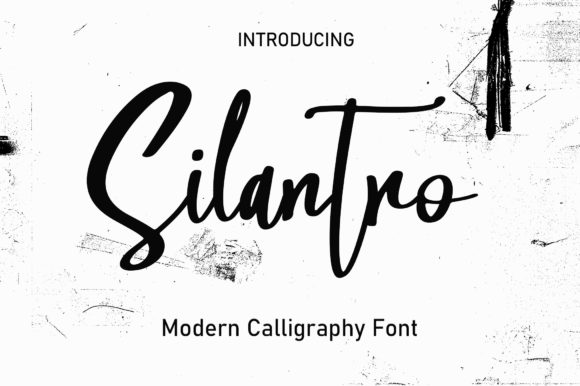
Allow Silantro's enchanting dance of characters to adorn your digital creations with a touch of exquisite grace. This captivating script font, meticulously crafted by the renowned Neo Studio, unveils a world of possibilities for your website design endeavors.
Step into a realm where elegance knows no bounds. Silantro's sweeping strokes and playful flourishes ignite a symphony of visual delight, ensuring your website radiates an aura of sophistication and charm. Transform ordinary text into captivating headlines, elevate your product descriptions to new heights of allure, and weave a tapestry of words that captivates and compels.
With Silantro by your side, you hold the power to craft a digital haven where beauty and functionality harmoniously intertwine. Your website will blossom into a symphony of visual allure, attracting visitors like moths to a flame. Let Silantro's timeless beauty paint a picture of elegance and professionalism, leaving an indelible mark on the minds of your audience.
Whether you're a seasoned web designer or just starting your journey into the world of digital aesthetics, Silantro will be your trusted companion. Its intuitive design and effortless compatibility with various platforms make it the perfect choice for those seeking a font that seamlessly blends artistry and functionality.
Dive into a world where creativity flourishes and let Silantro guide you towards digital greatness. Embrace the power of this remarkable script font and unlock the full potential of your website design. Experience the transformative power of Silantro today and witness the birth of a digital masterpiece.